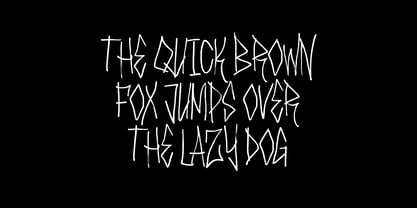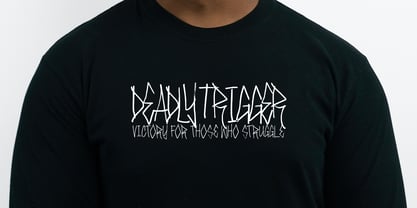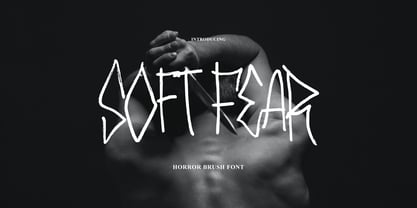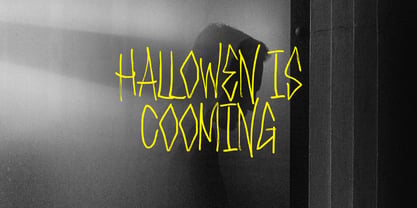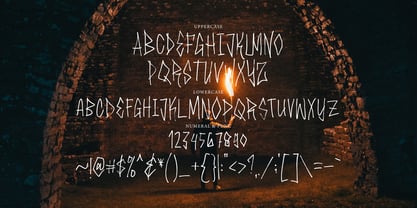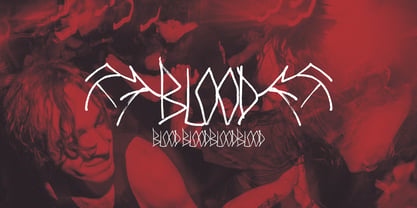
Soft Fear Brush
by Tebaltipis Studio
The Soft Fear Brush Font Family was designed by Dzulka Elfira and published by Tebaltipis Studio. Soft Fear Brush contains 1 styles. More about this family
Just like its name, Soft Fear Brush creates terror in everything it is written. The rough and jagged brush texture, emphasize the scream of the scared audiences.
Suit perfectly for Spooky and Scary Halloween games, poster, movie title, fast food menu, magazine, youtube covers, youtube thumbnails, social media page covers and so on...